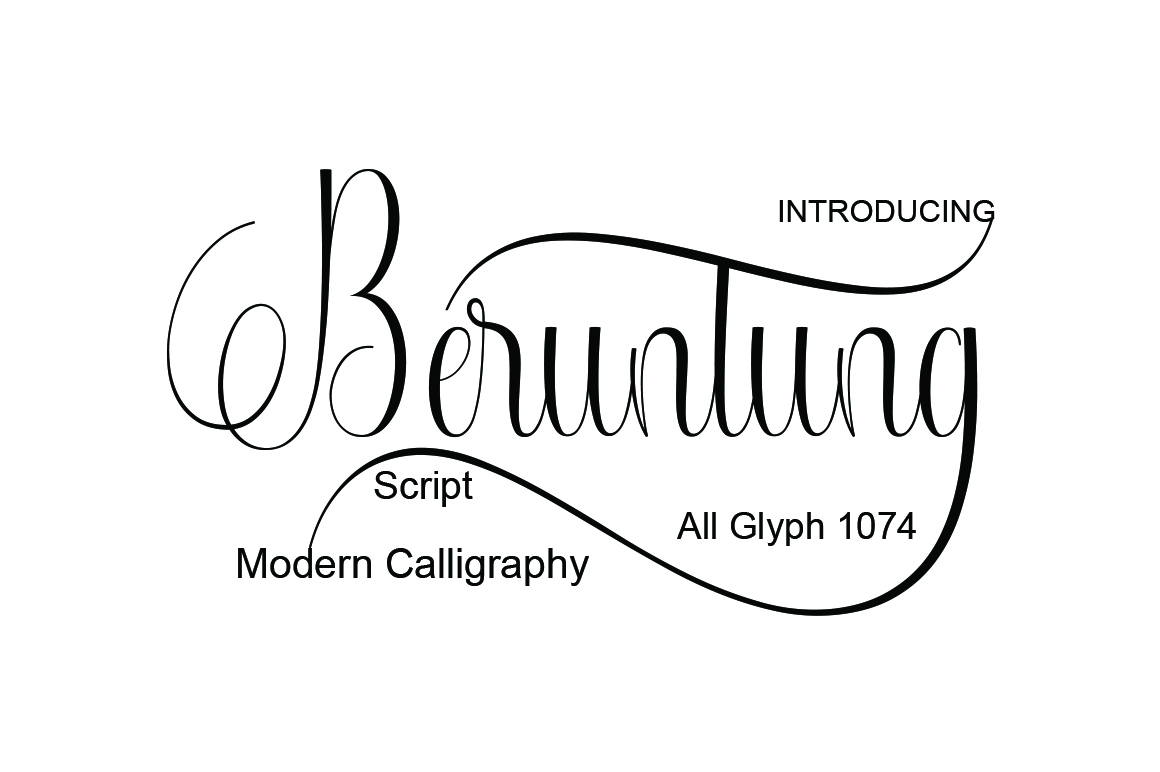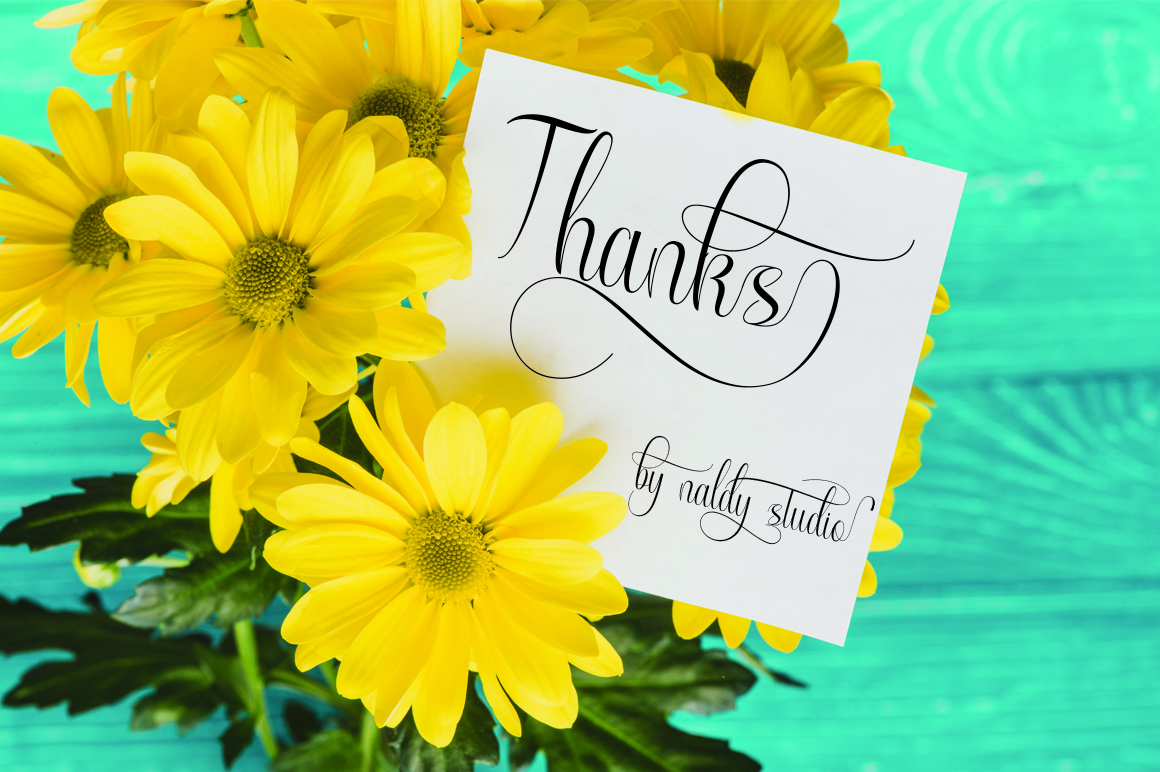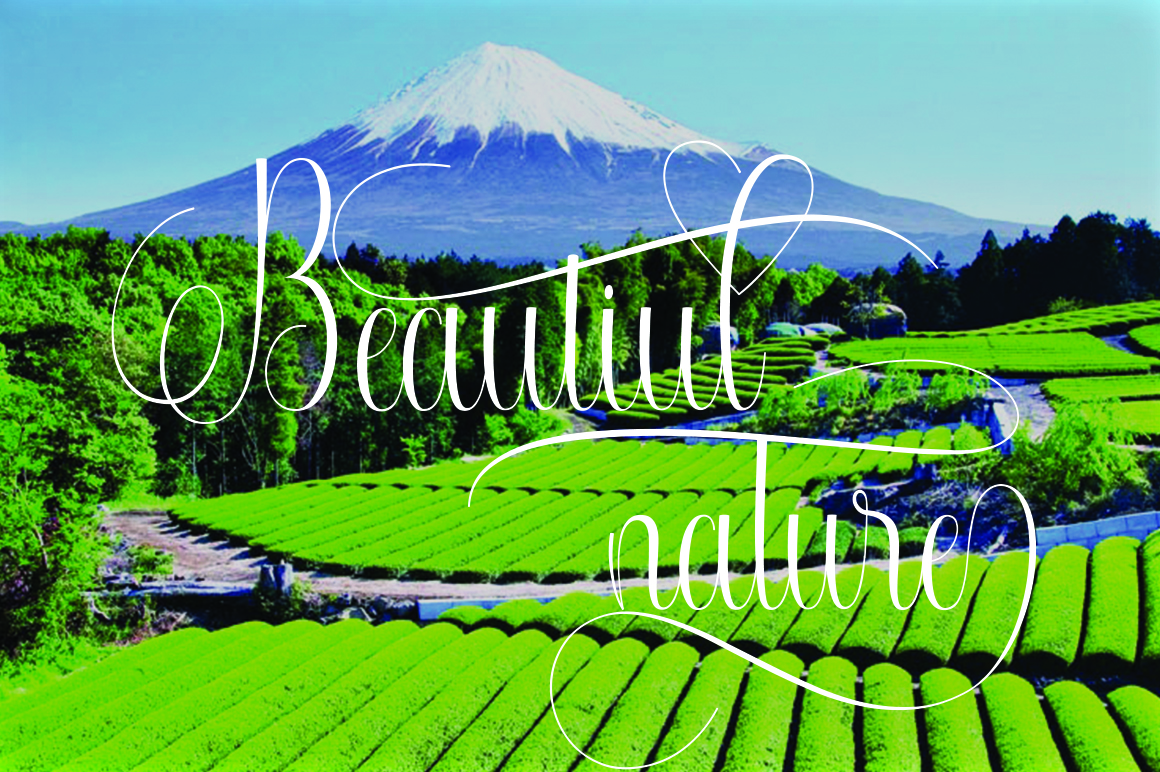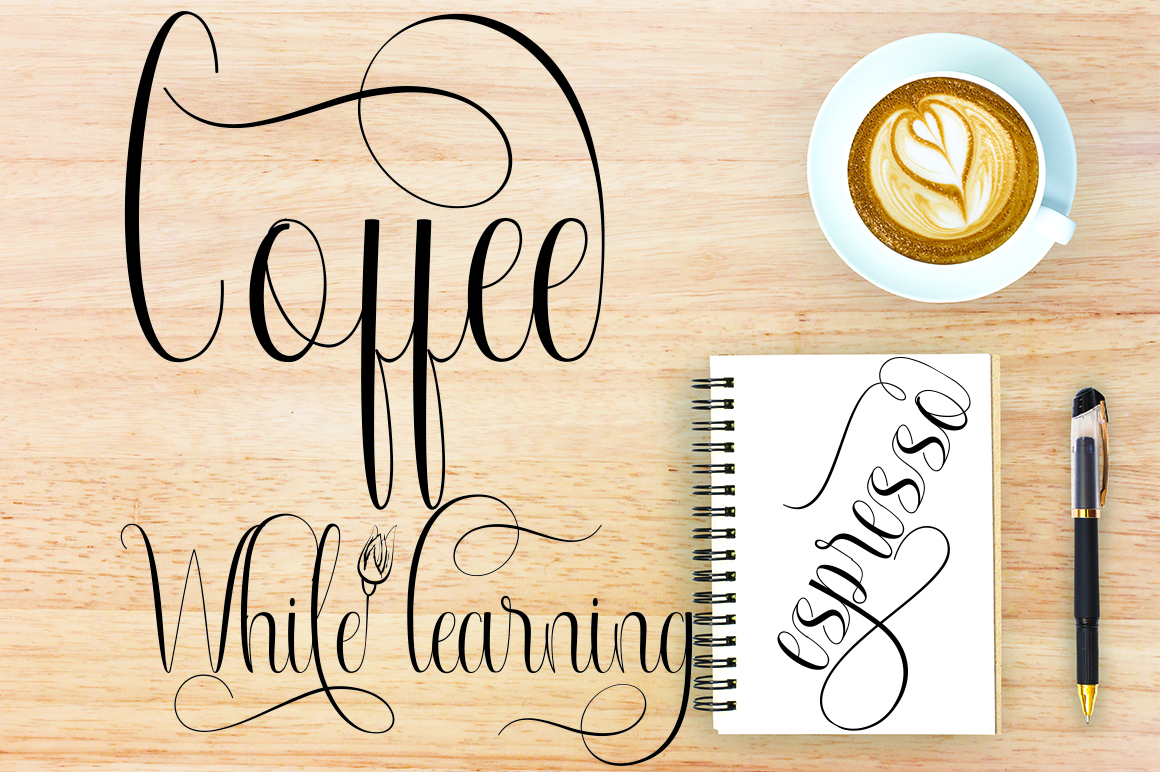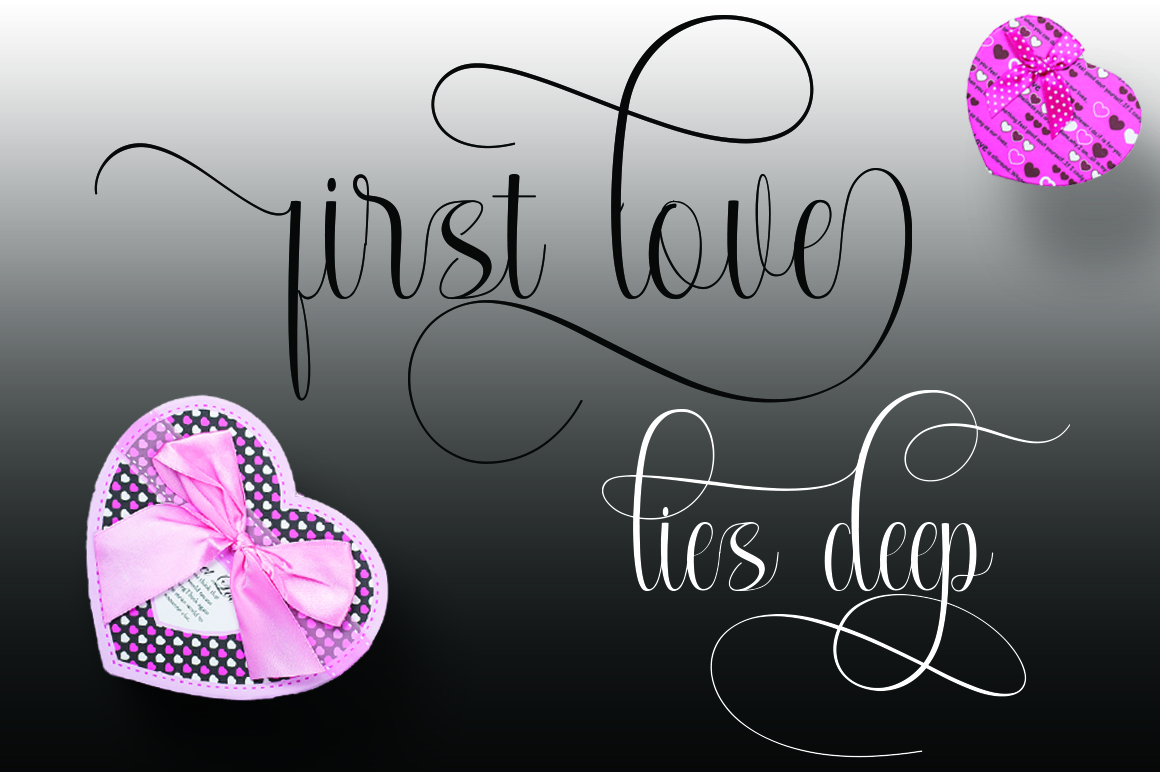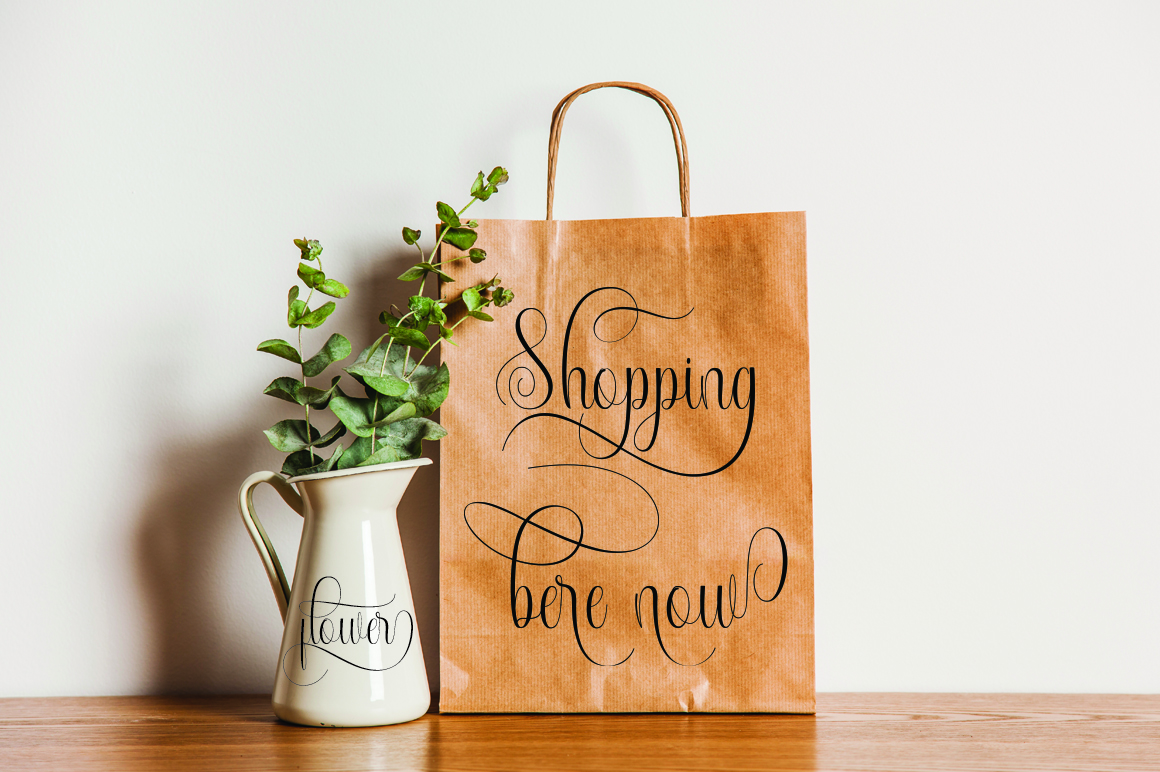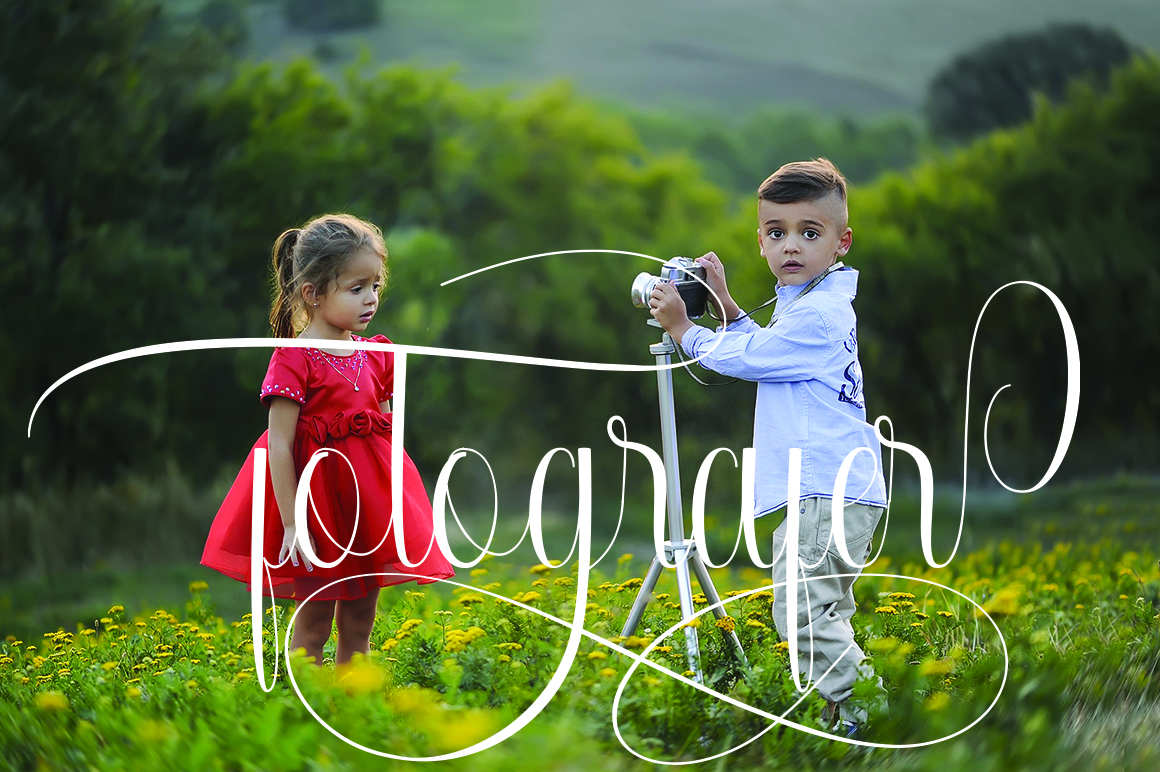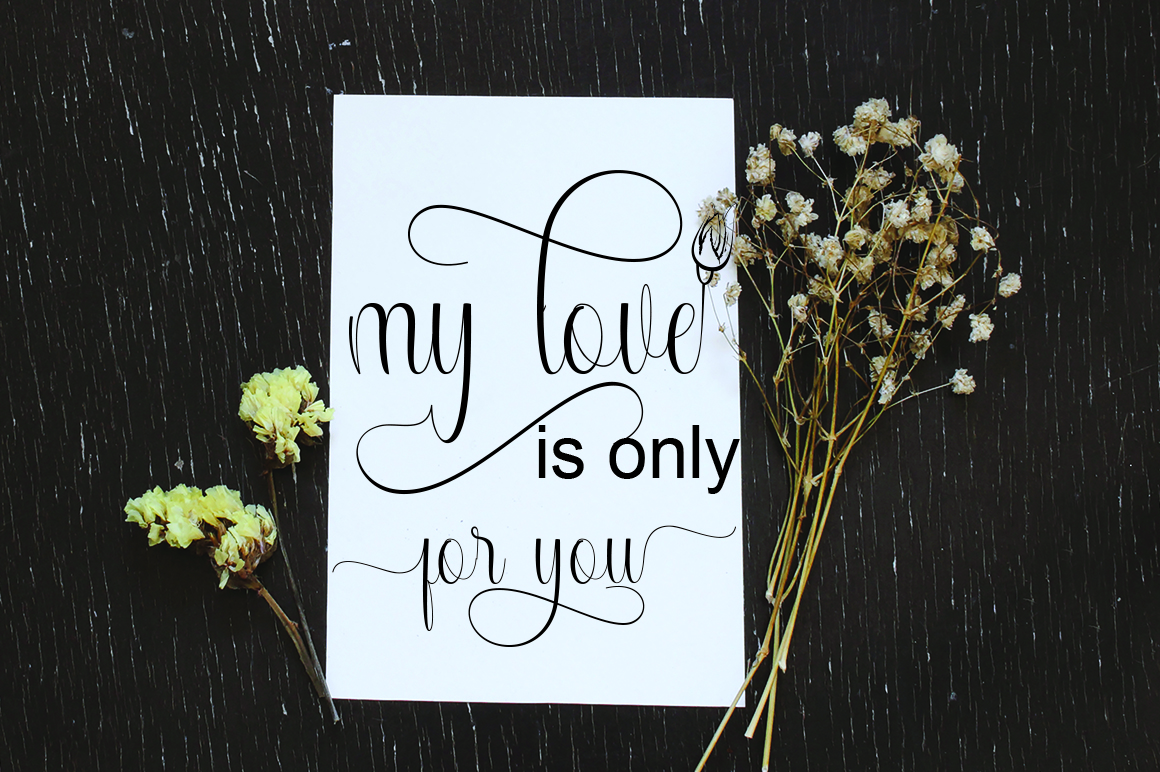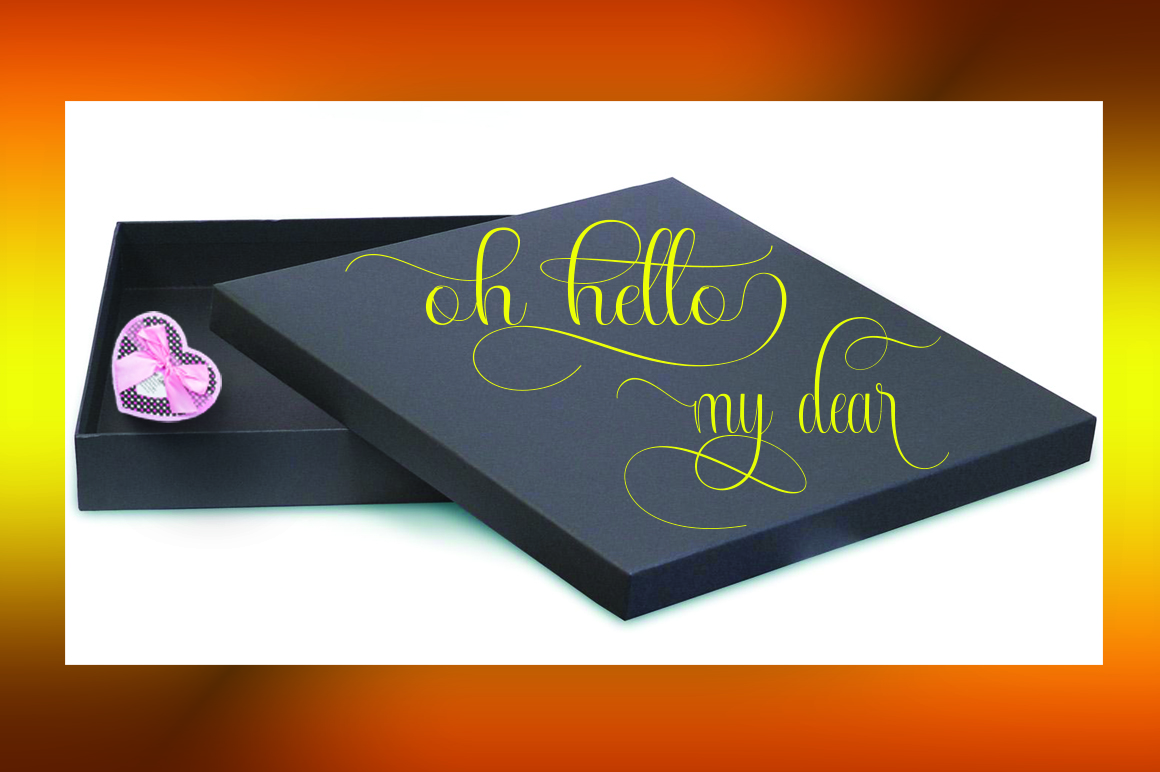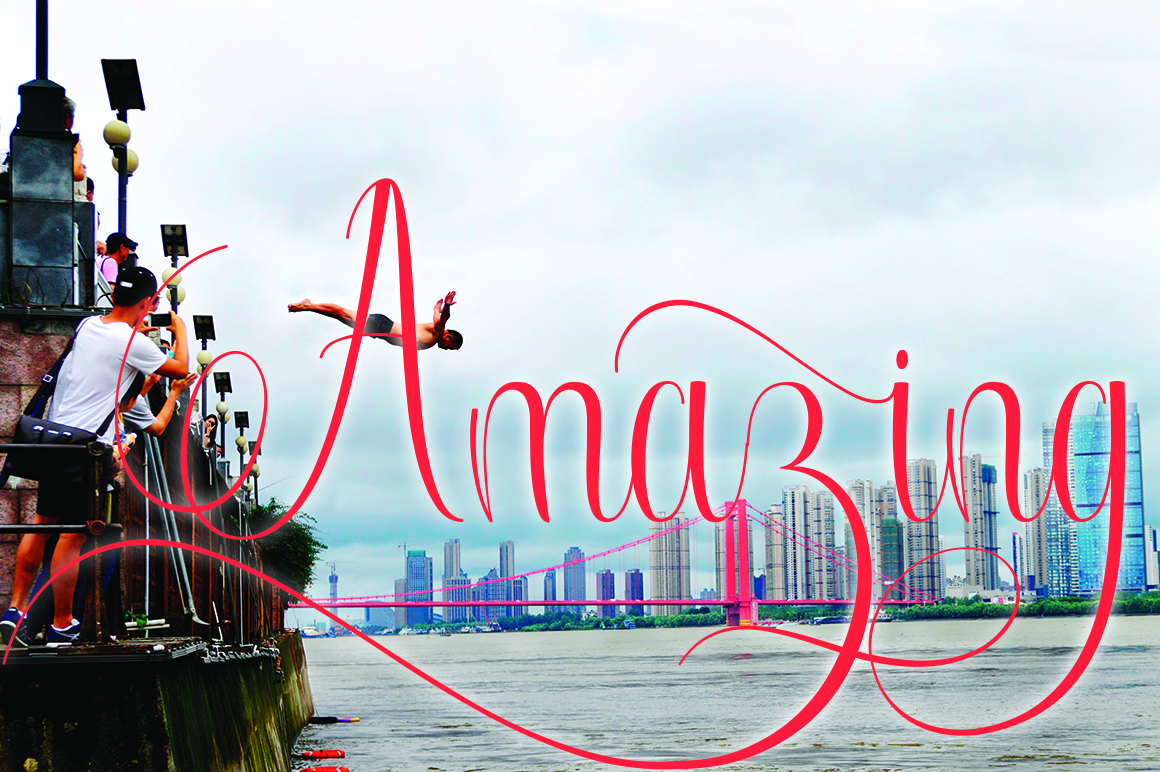
Beruntung Font
About Beruntung Font
Beruntung is a gorgeous, embellished script font that is perfect for a wide range of uses. This font comes with tons of alternates and swashes, making it ideal for romantic or special event designs.